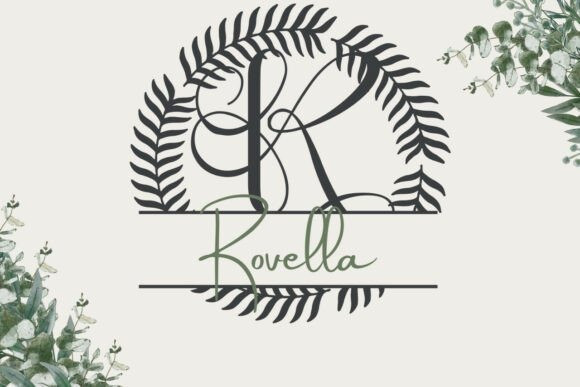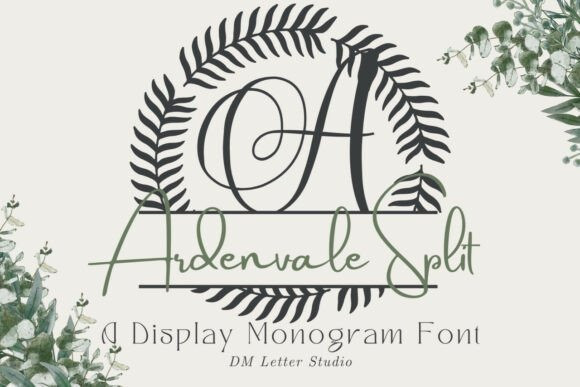
Ardenvale Split Monogram Font
Ardenvale Split Monogram Font turns initials into custom nameplates in seconds. Letters feel elegant and clear. The split panel leaves space for names, dates, or short words. Because the structure stays balanced, you get a polished look with very little effort. Use it for wedding gifts, family signs, door hangers, tumblers, and ornaments. Moreover, this Split Monogram Font pairs beautifully with simple sans and script fonts, so your layouts stay refined and readable.
Set single initials with a name inside the split. For example, try family names, couple names, or short phrases like “Home” and “Welcome.” Then add frames, florals, or simple borders around the design. Since spacing is tuned for clarity, you can size it for wall art, tags, or small keychains. As a result, this Split Monogram Font works perfectly for Cricut, Glowforge, and laser or vinyl projects.
Keep the main initial large, and let the split line sit at the center or just below. Then choose a simple secondary font for the name inside the split. Meanwhile, try soft palettes like champagne and charcoal, or bolder mixes like navy and gold. Because Ardenvale Split Monogram Font is clean, it pairs well with wood textures, frosted glass, and matte tumblers. However, keep text inside the split short, so everything stays readable at small sizes.